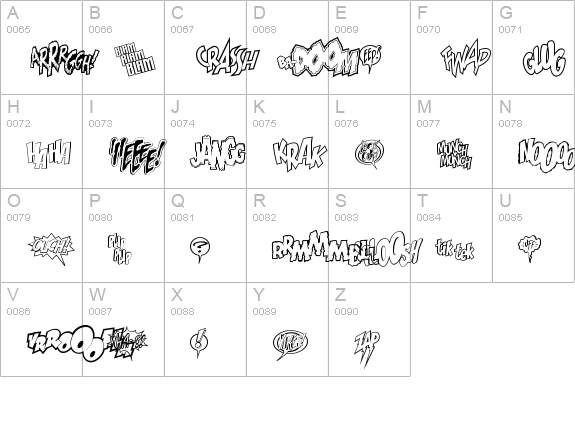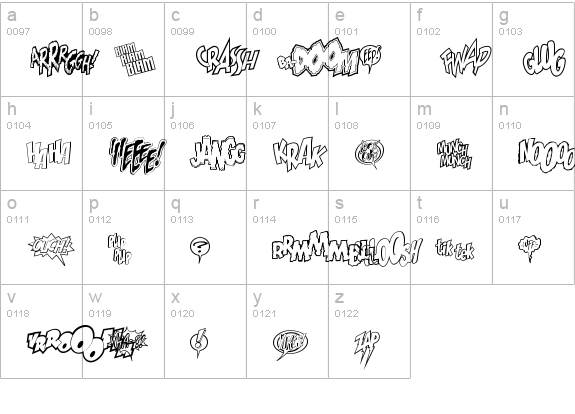
WildAndCrazySFX Font Details
Introducing WildAndCrazySFX font, a vibrant and energetic typeface that will add a touch of excitement to your designs. This font is truly wild and crazy, with its bold and exaggerated letterforms that seem to dance across the page. WildAndCrazySFX is the perfect choice for projects that require a bold statement, such as posters, headlines, and logos. Its unique and unconventional style will instantly grab attention and leave a lasting impression on your audience. But what sets WildAndCrazySFX font apart from the rest is that it is not only visually stunning, but also completely free to use. That's right, this font can be freely downloaded at FontsMarket.com, making it accessible to designers of all budgets. So why wait? Unleash your creativity and let WildAndCrazySFX font take your designs to the next level. Download it today and get ready to embrace the wild and crazy side of typography.